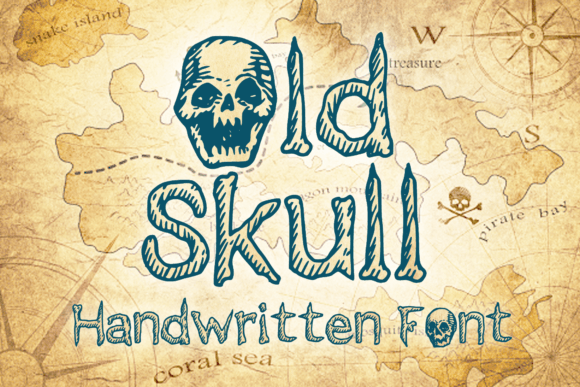
In the realm of digital art, where words dance on screens and imaginations ignite, there lies a font that captures the essence of ancient wisdom and timeless mystique. Behold, Old Skull Font, a display font born from the depths of creativity, ready to adorn your designs with a touch of vintage charm and spooky elegance.
Crafted by the ingenious MVMET, Old Skull Font is not merely a collection of characters; it's an artistic journey through time, inviting you to explore the secrets of forgotten civilizations and embrace the allure of the unknown. With its meticulously hand-drawn glyphs, each letter resembles an ancient artifact, bearing the weight of history and the promise of untold stories.
Step into a world where imagination reigns supreme, where your designs transcend the ordinary and take on an eerie, captivating aura. Old Skull Font is your gateway to a realm of limitless possibilities, where every word carries the weight of ages past and every design tells a tale of mystery and wonder.
Whether you're a seasoned artist seeking inspiration or a novice designer yearning to make a statement, Old Skull Font is your muse, guiding you through the labyrinth of creativity and unlocking the true potential of your imagination. Embrace the darkness, unleash your inner artist, and let the Old Skull Font be your companion on this extraordinary voyage.